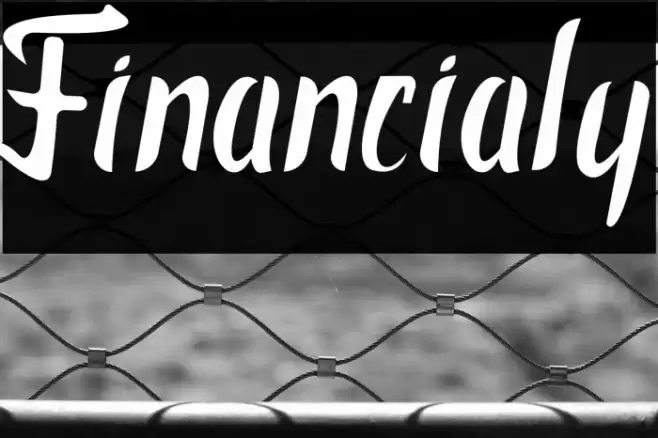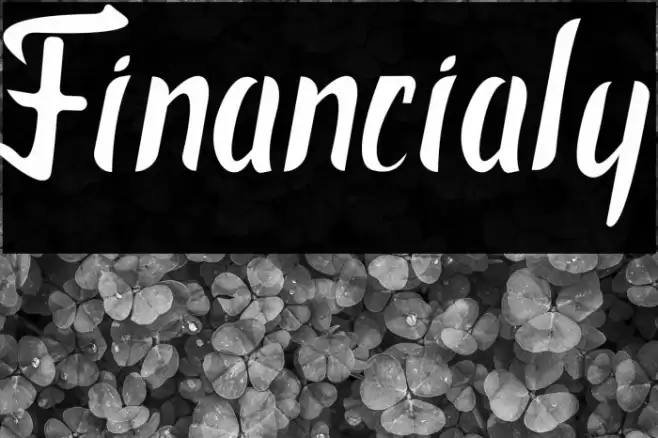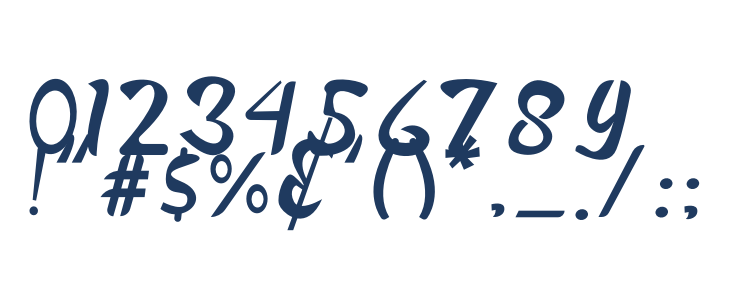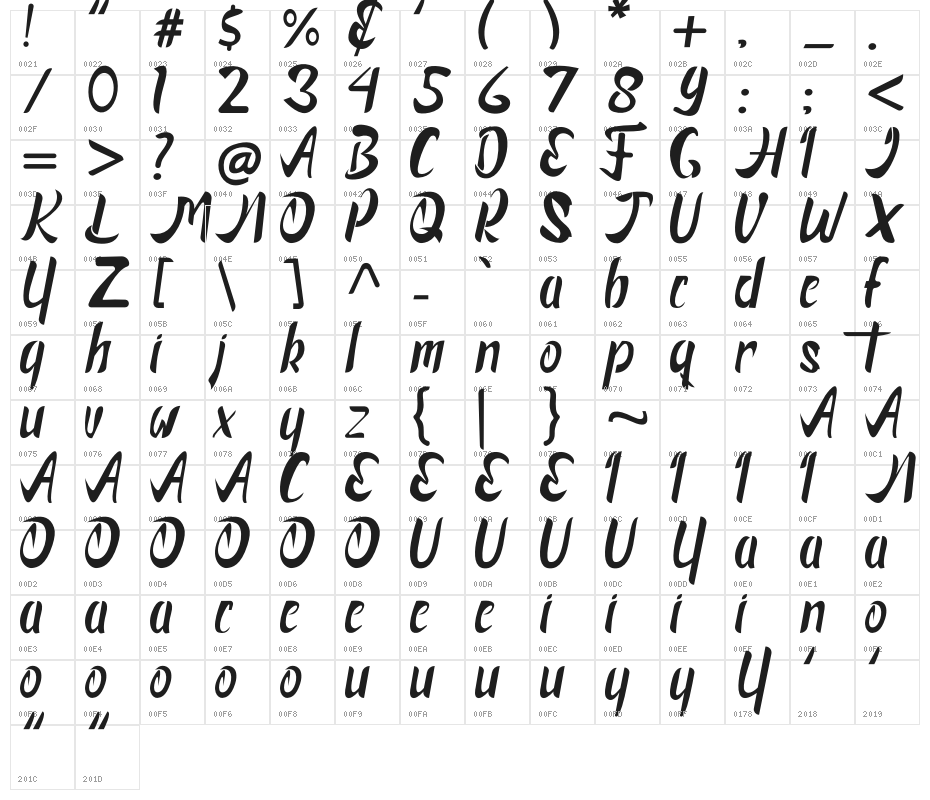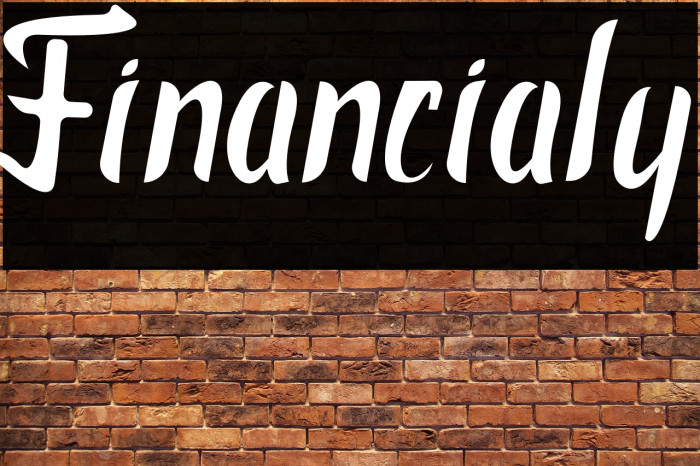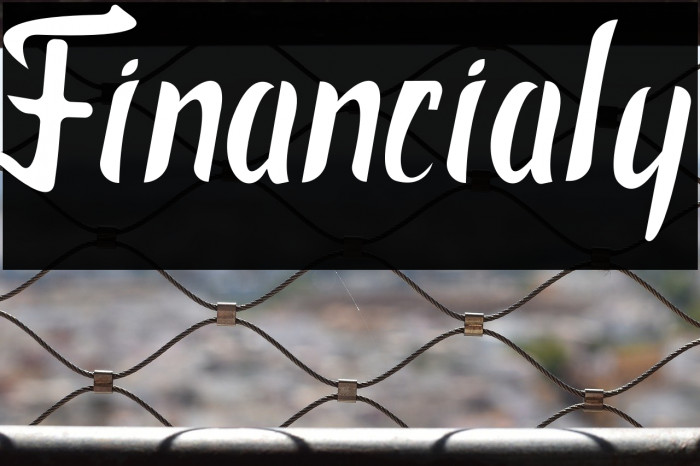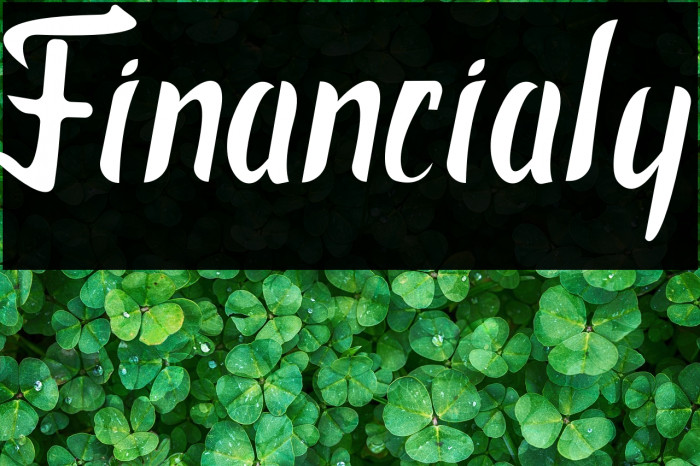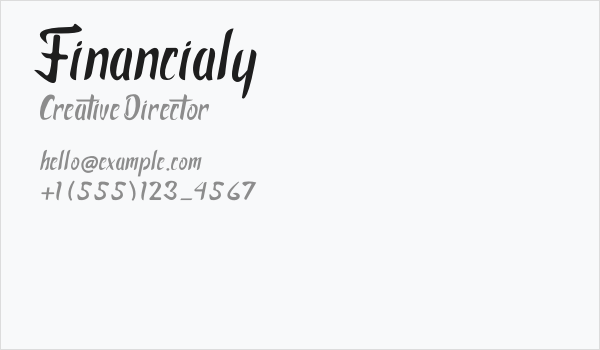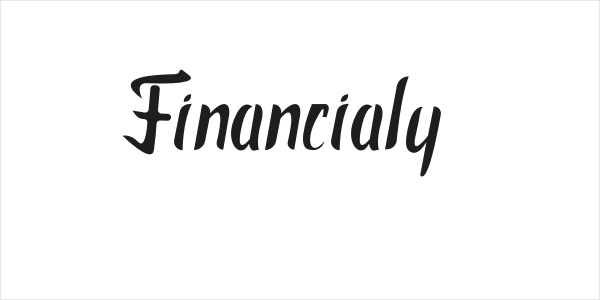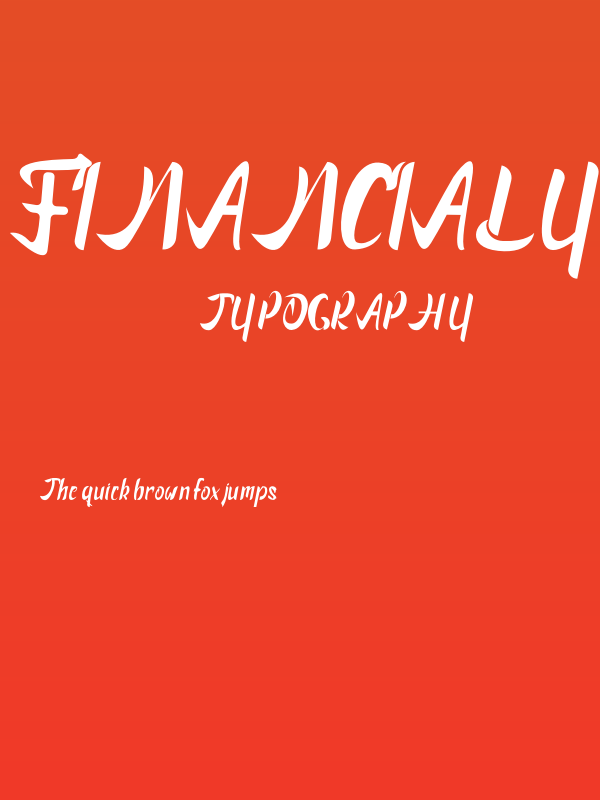
Financialy Font
Financialy Description
This font exhibits a bold and dynamic script style, characterized by its flowing, cursive letterforms that convey a sense of movement and elegance. The uppercase letters are particularly striking, with sweeping curves and dramatic flourishes that add a touch of sophistication. The lowercase letters maintain a consistent style, with smooth connections and a slightly slanted orientation that enhances readability. The numerals are designed to match the overall aesthetic, featuring similar curves and bold strokes. Special characters are included, maintaining the same expressive quality. This font is ideal for projects that require a personal, artistic touch, such as invitations, branding, or creative headlines.
A bold, dynamic script font with flowing, cursive letterforms from Regular fonts.
- Proposed Projects: Ideal for invitations, branding, creative headlines, and artistic projects.
- Use Case: Headlines, Logos, Invitations